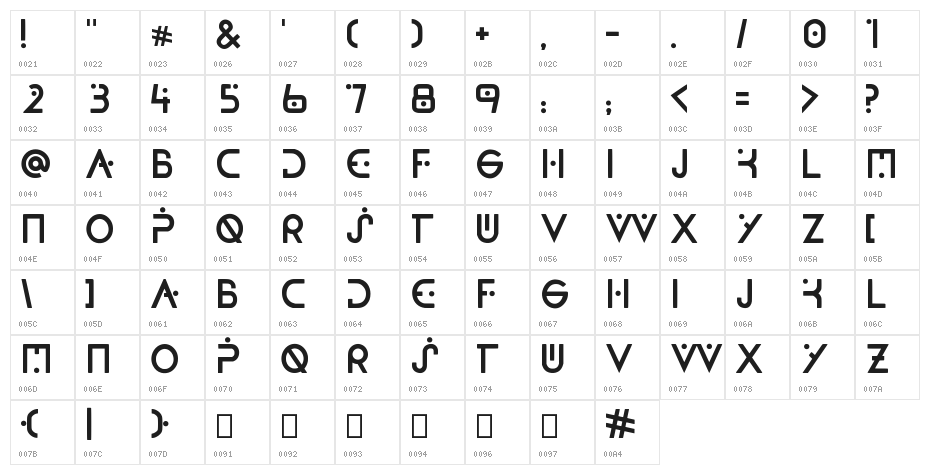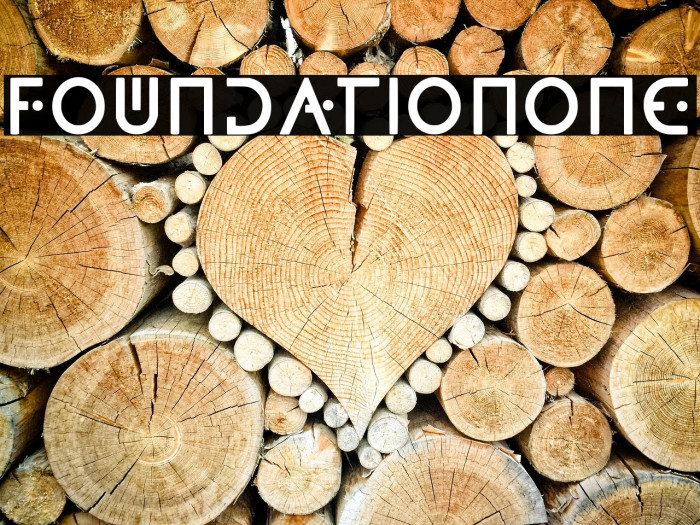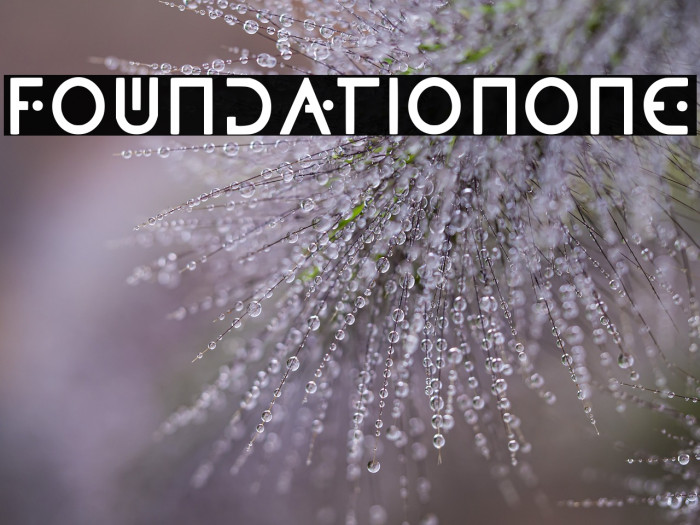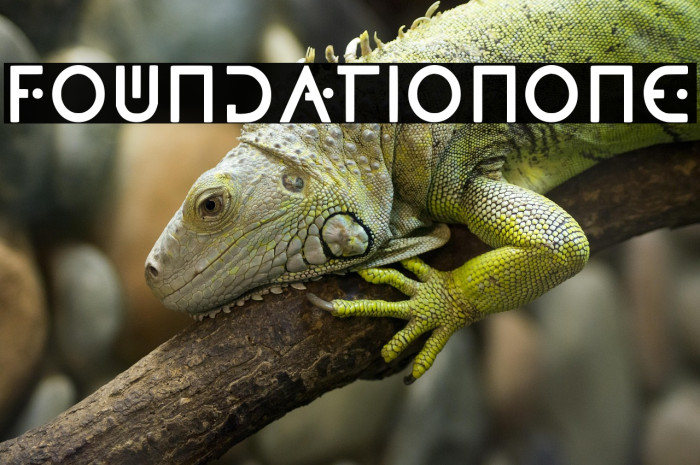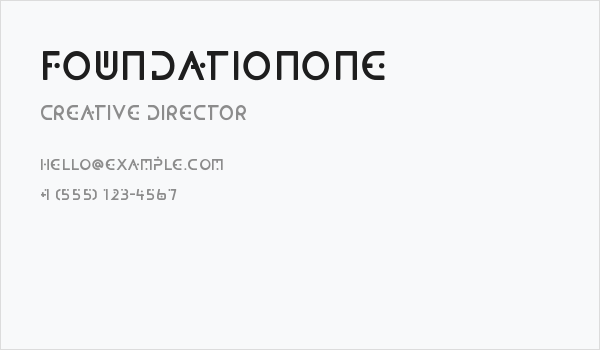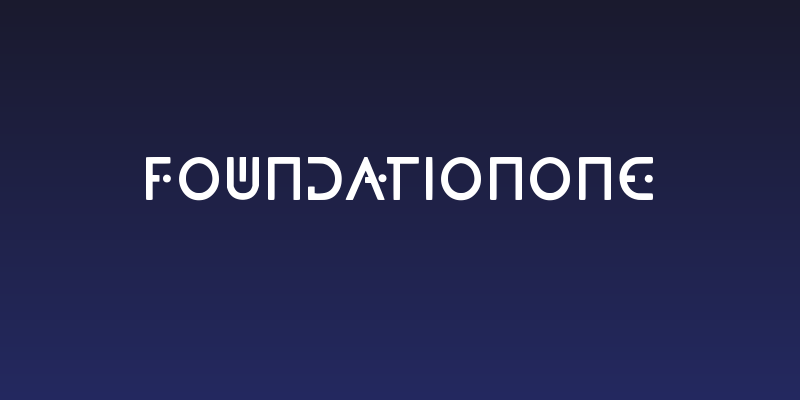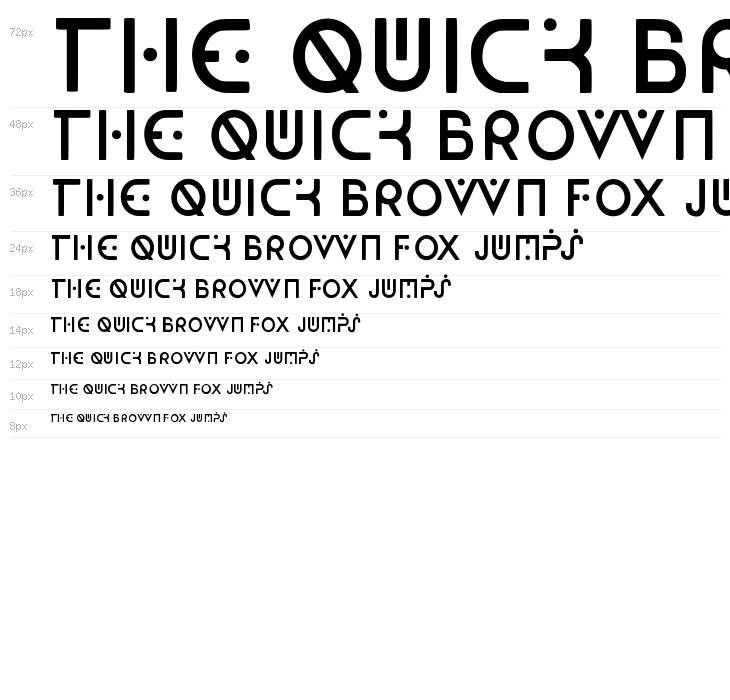
FoundationOne Font
This font features a unique and modern design with geometric shapes and distinct circular elements integrated into each character. The uppercase and lowercase letters maintain a consistent style, characterized by clean lines and a futuristic appearance. The numbers and special characters follow the same design principles, ensuring uniformity across all glyphs. The font's bold and structured form makes it highly legible, while the innovative use of dots and lines adds a decorative touch. This typeface is ideal for projects that require a contemporary and eye-catching aesthetic.
| Use Case | Logos, Headlines, Posters |
| Proposed Projects | Ideal for branding, logos, posters, and digital media that require a modern and distinctive look. |